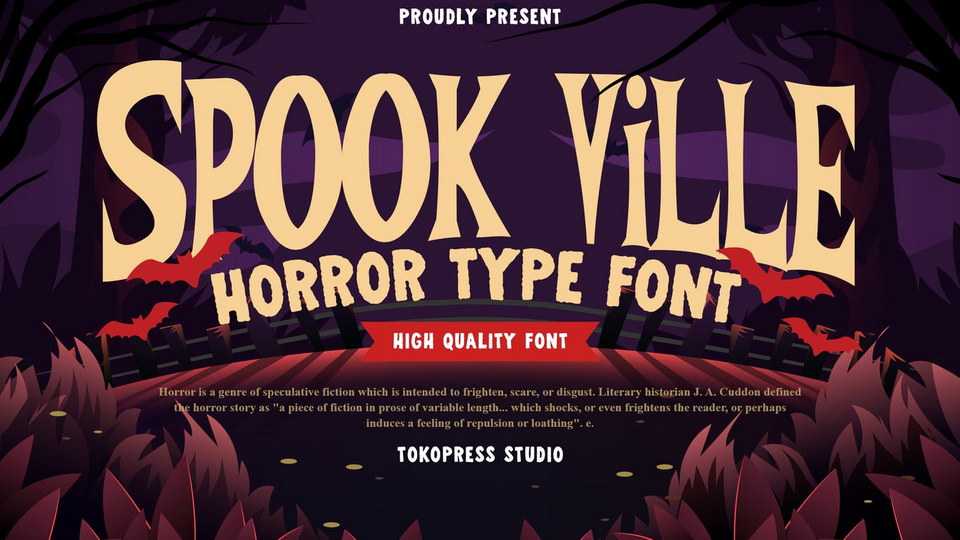
Download Spook Ville font, a scary horror typeface. Owl hooting, freezing wind blowing, the wolves howling….and you hear a scratching sound coming. It’s all terror and horror in Spook Ville.